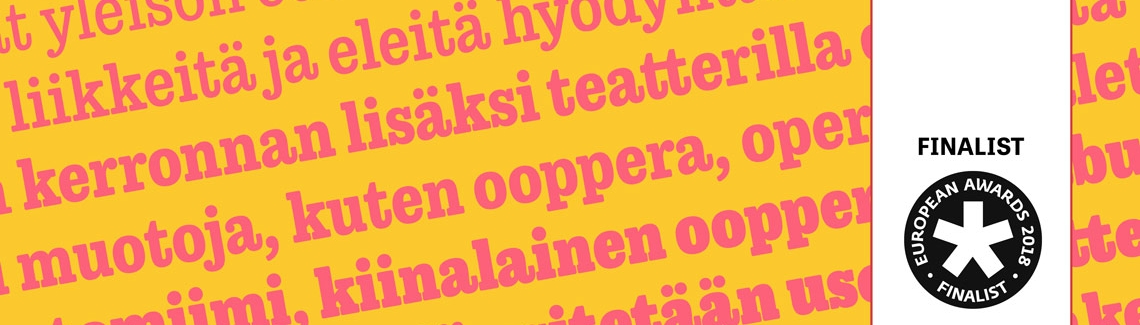
European Design Awards 2018
Trevor among the finalists at the European Design Awards 2018!
Each year the European Design Awards selects the top type designs from the prior year. We’re happy to announce that Teo Tuominen’s Trevor font family was a finalist in a very close competition. To celebrate, we’re offering a one-time discount of 60% off the Trevor family, but only for the first 60 takers.
Trevor is an affable slab serif in nature: both kindly and commanding. Known for their familiarity and their dark colour, the terminals of slab serifs put additional weight along the line to maintain an inky presence. Since their clunky forms reveal slight immaturity and arouse the reader’s sympathy for the subject at hand, Trevor connects with others by consciously riding the line between being personal and commanding.